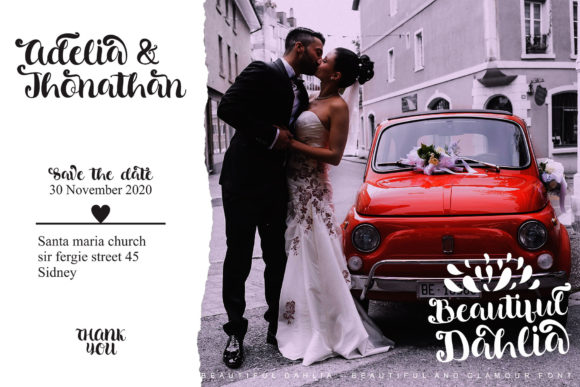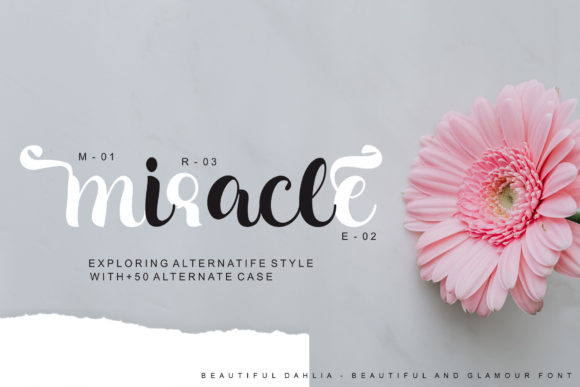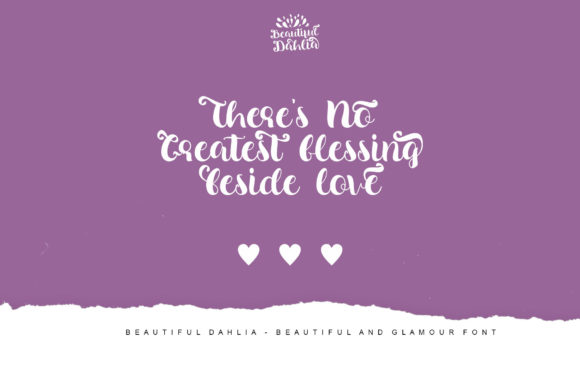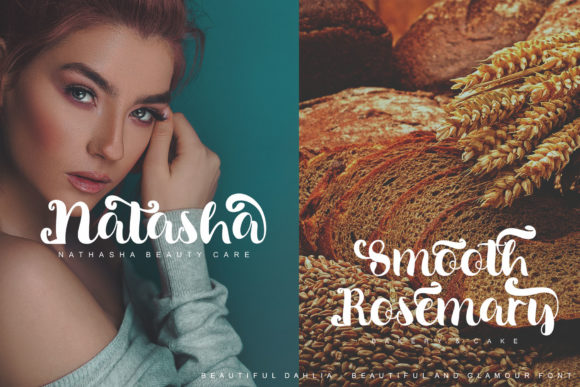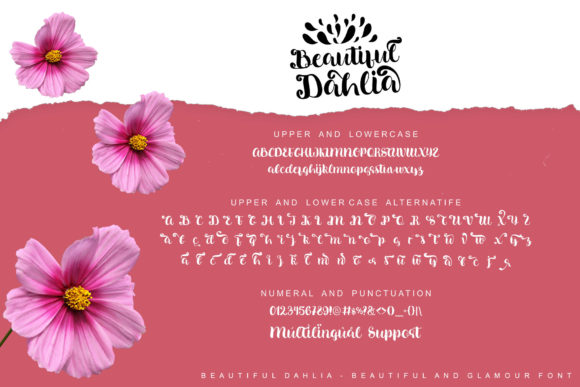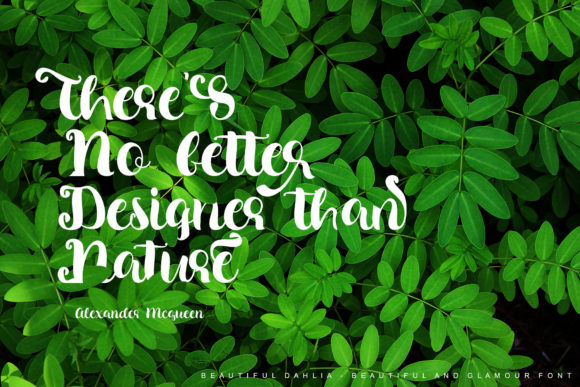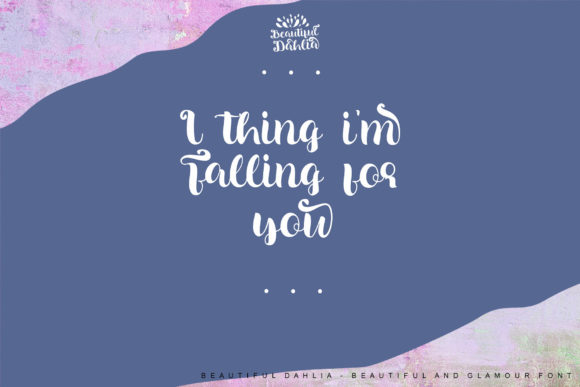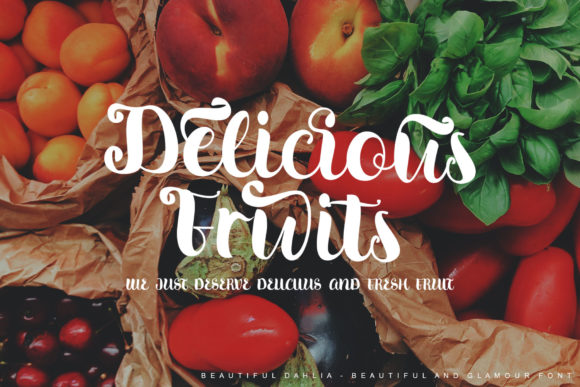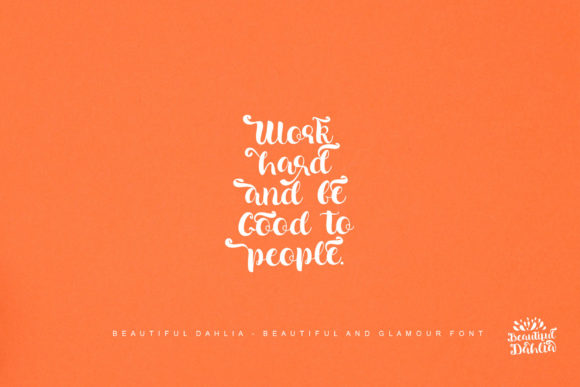
Beautiful Dahlia Font
About Beautiful Dahlia Font
Beautiful Dahlia is a cute and friendly script font. A little bit quirky, this font looks incredibly adept on a wide variety of contexts. Get inspired by its authentic feel and use it to create gorgeous wedding invitations, beautiful stationary art, eye-catching social media posts, and cute greeting cards.